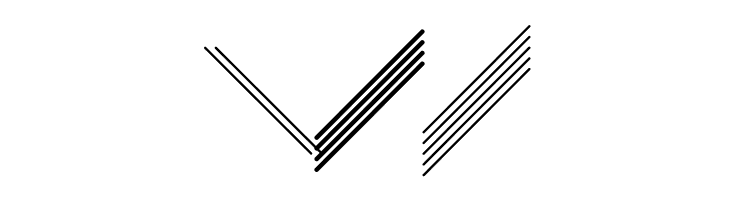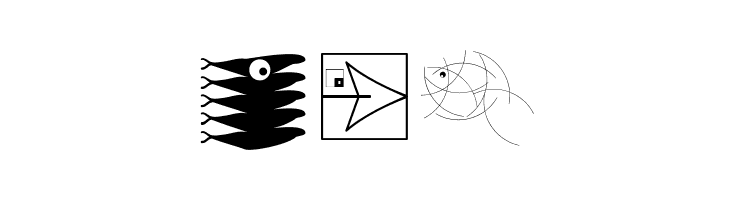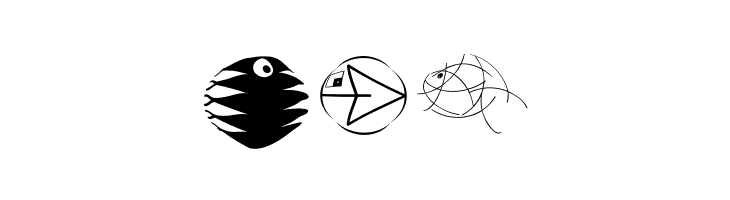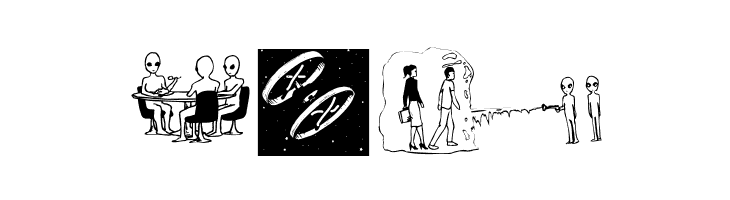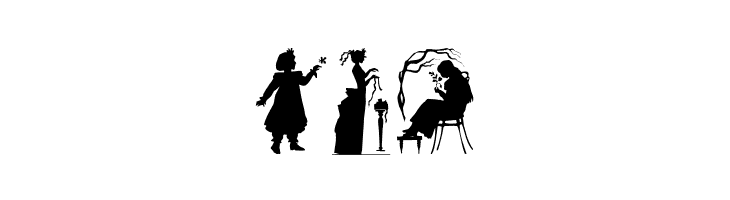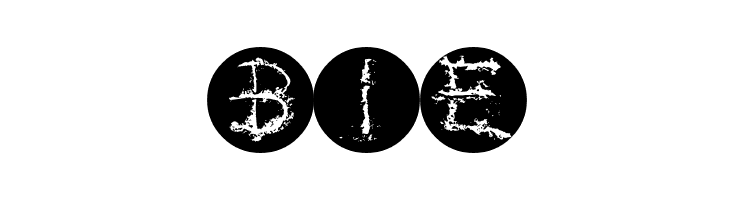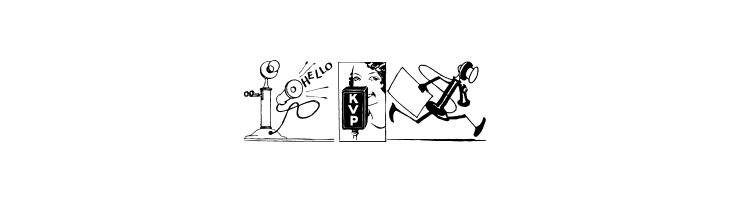
• GalleriaGeometricaA
A geometric pattern with parallel lines creating dynamic and rhythmic visual flow.
• MoreSilhousFrame
Decorative font with framed silhouette illustrations for each character.
• DingsUndDas
A collection of abstract and decorative symbols with a whimsical style.
• DingsUndDasRunde
A quirky, pictogram-based decorative font with abstract and playful motifs.
• SpaceMeetings
Cartoonish, space-themed illustrative font with unique drawings for each character.
• RomanticShadows
The image features decorative silhouette illustrations, not a font.
• MiszellenThree
An artistic font with abstract, whimsical character illustrations.
• InkAlphabetRRings
A distressed, stamp-like font with characters encased in circular rings, offering a vintage, grunge aesthetic.
• InkAlphabetInvers
A distressed, grunge-style font with characters in circular backgrounds, resembling worn-out ink stamps.
• BeforeEmailAndTV
An illustrative and decorative font composed of detailed images instead of traditional characters.